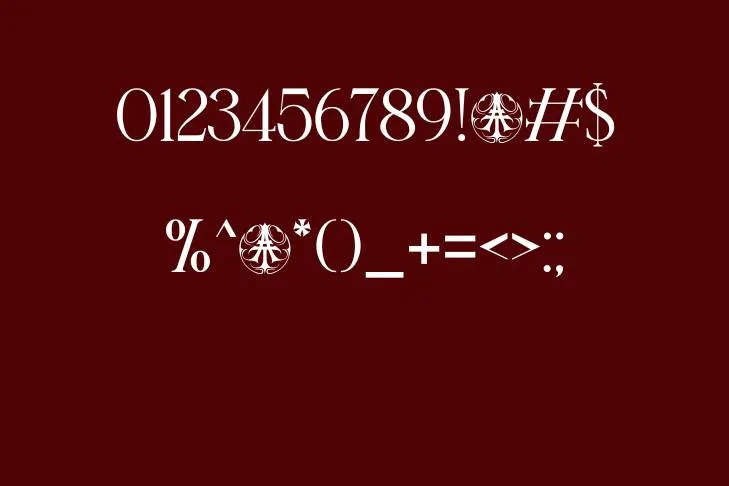
Rose Velt font is a classic font with a touch of modern design. It will separate you from the crowd, because of its unique and elegant design. It consists of uppercase and lowercase that have the same foam.
The feminine look is the reason for its popularity. This outstanding typeface has unique qualities such as thin strokes with a mild simplicity touch, making it look more Astonishing. It is also specified by CSS. The designer of this marvelous font is ilhamtaro.
What Are the Uses of Rose Velt Font?
you don’t need to worry if you apply this font in your logos, poster, magazines, and in your social media account advertisement posts. It has a vintage and clean look to make your advertisement post look more attractive.
There is another use of this marvelous typeface in making bold declarations in email marketing, newspaper, newsletters, ads, banners, graphics, greeting cards, Logos, power point representation. It is highly recommended for the content of your websites and blogs because of their thin stokes which tend to load quicker on webpages.
Design Appearances of Rose Velt Font
Name | Rose Velt Font |
Style | Serif |
Designer | Ilhamtaro |
Is Rose Velt a modern typeface?
It is a combination of classic and modern typefaces. They provide you with stylish numbers, characters, and symbol designs.
Is the Rose Velt typeface easy to read?
As it originated from the serif family. It is perfectly readable even in small sizes for lengthy paragraphs.